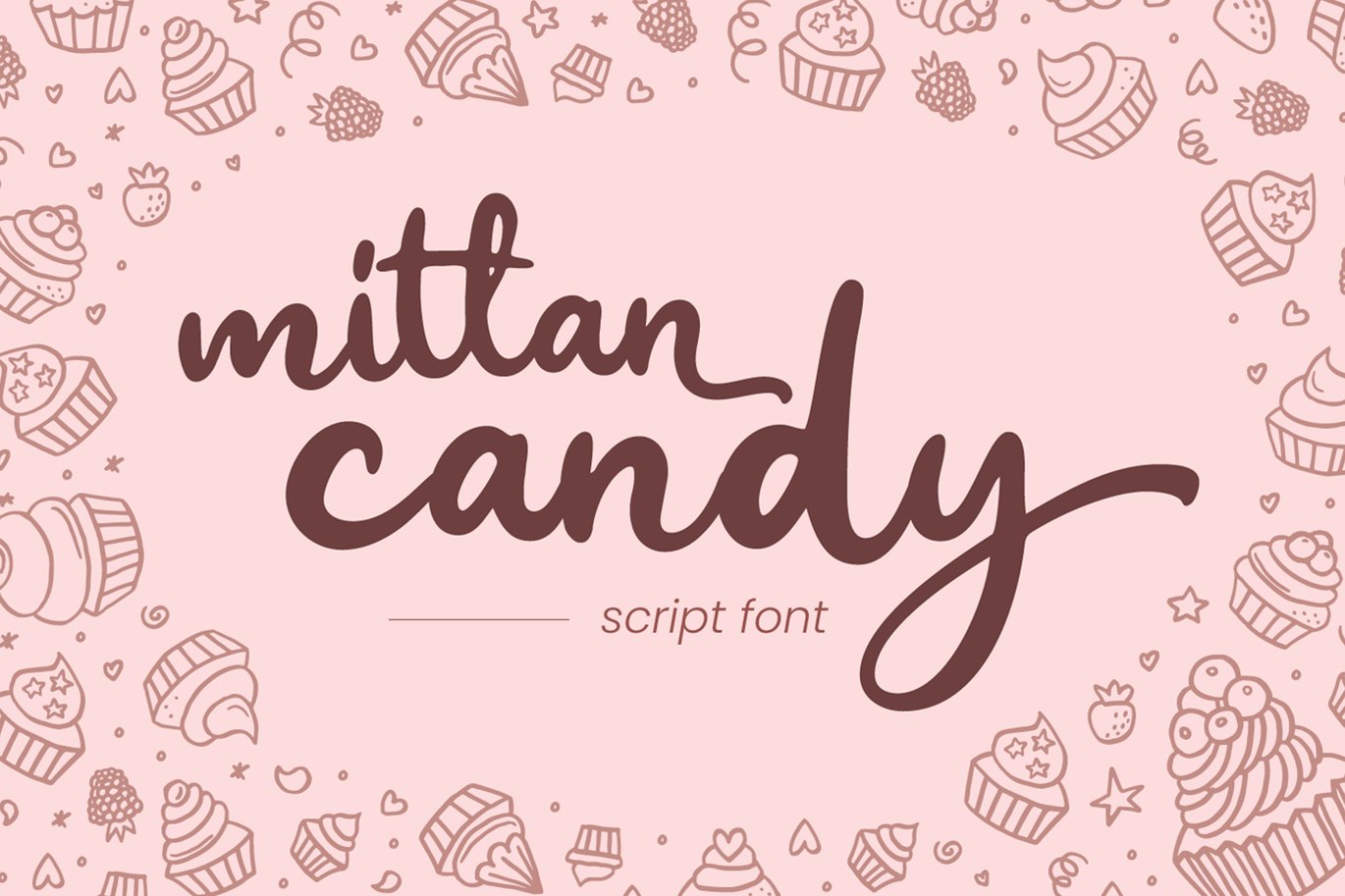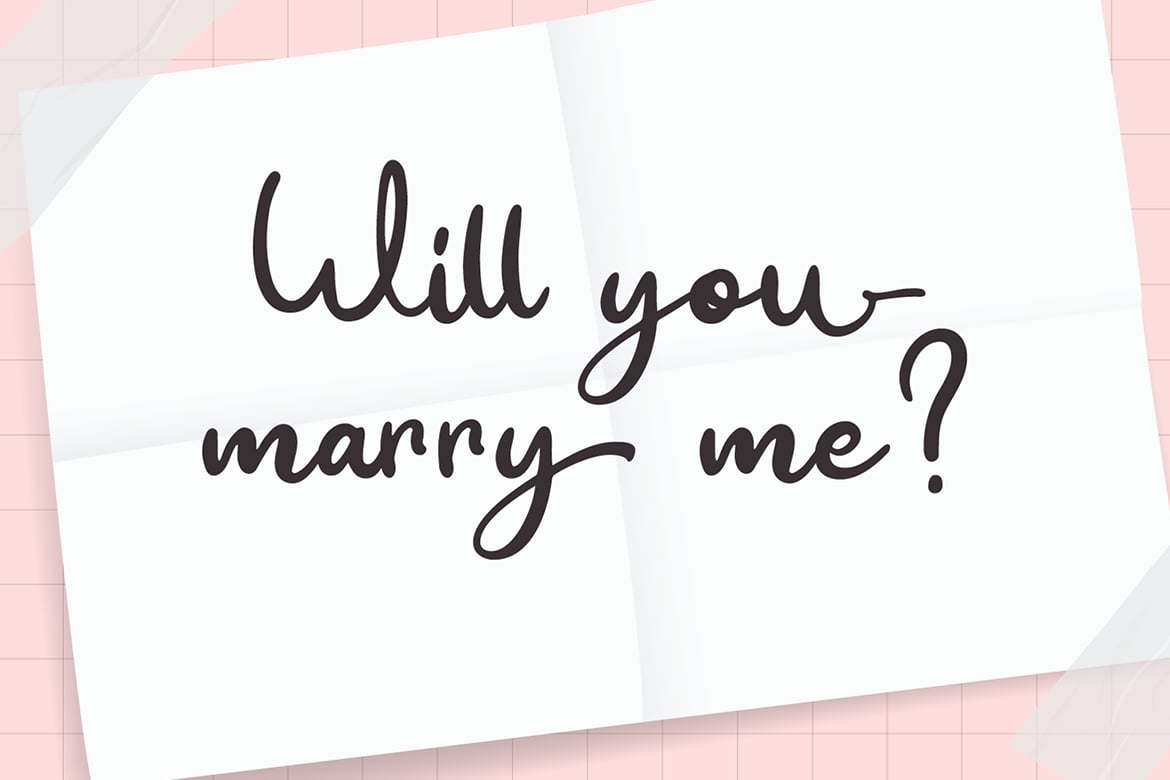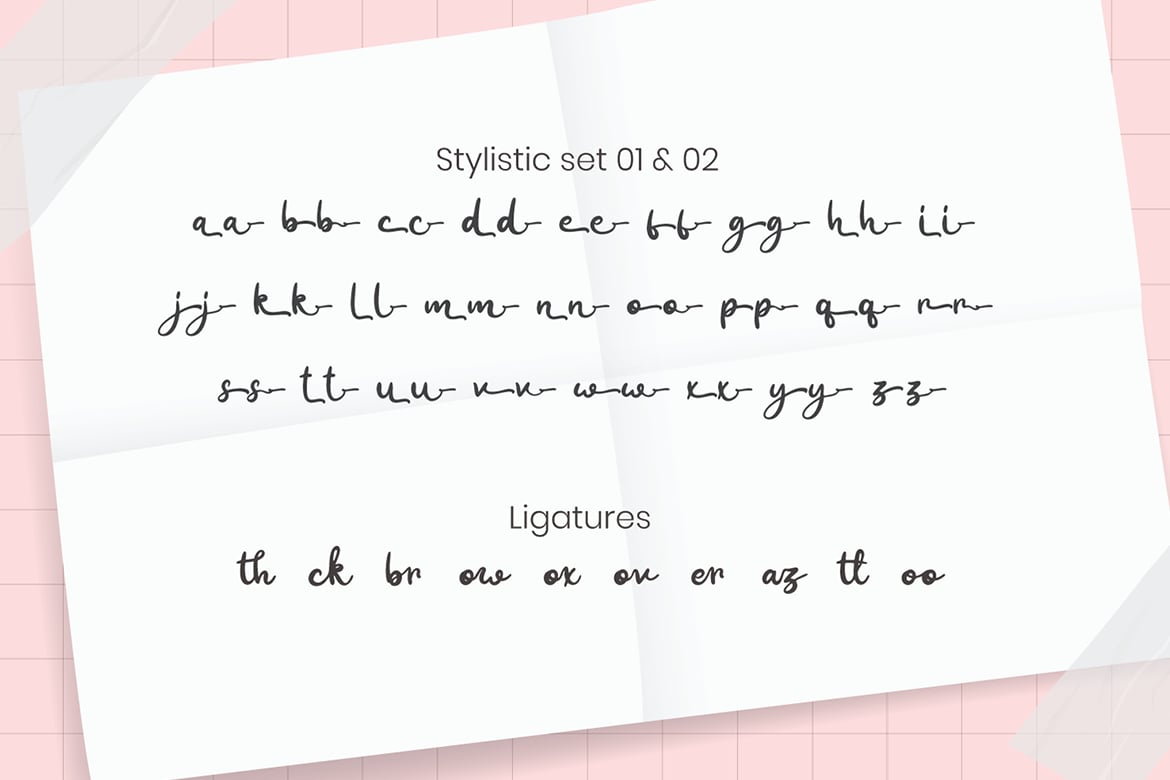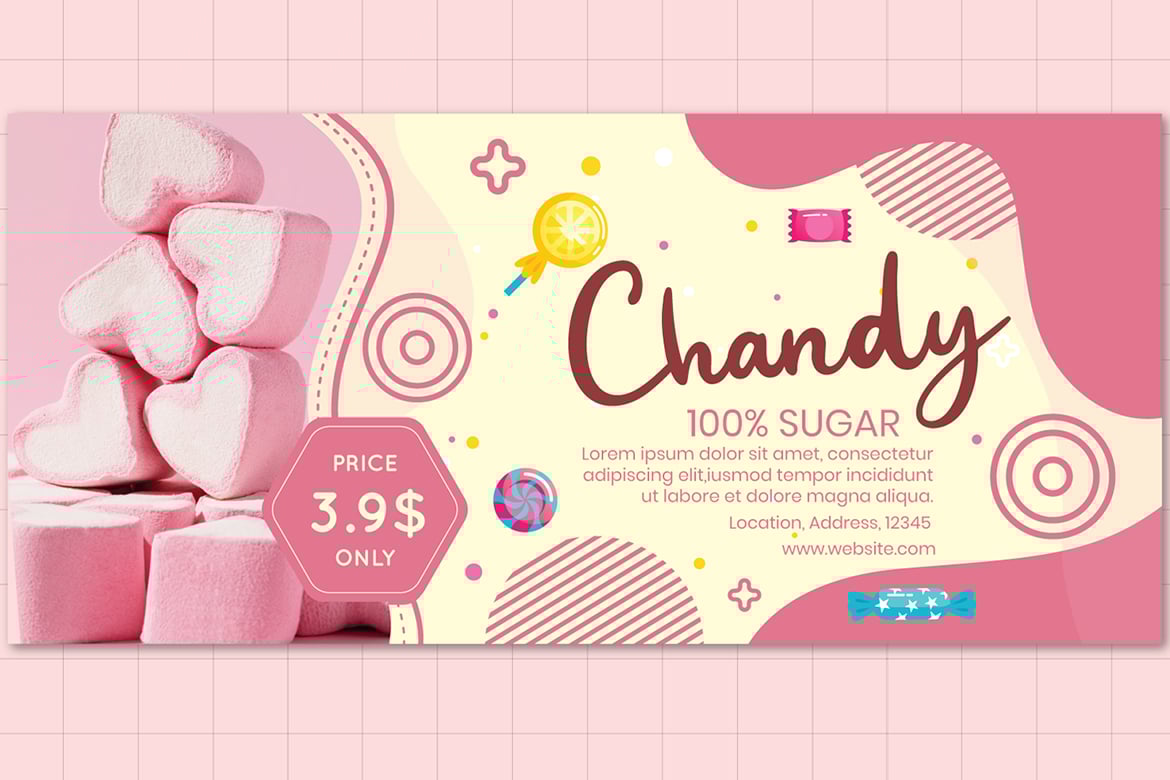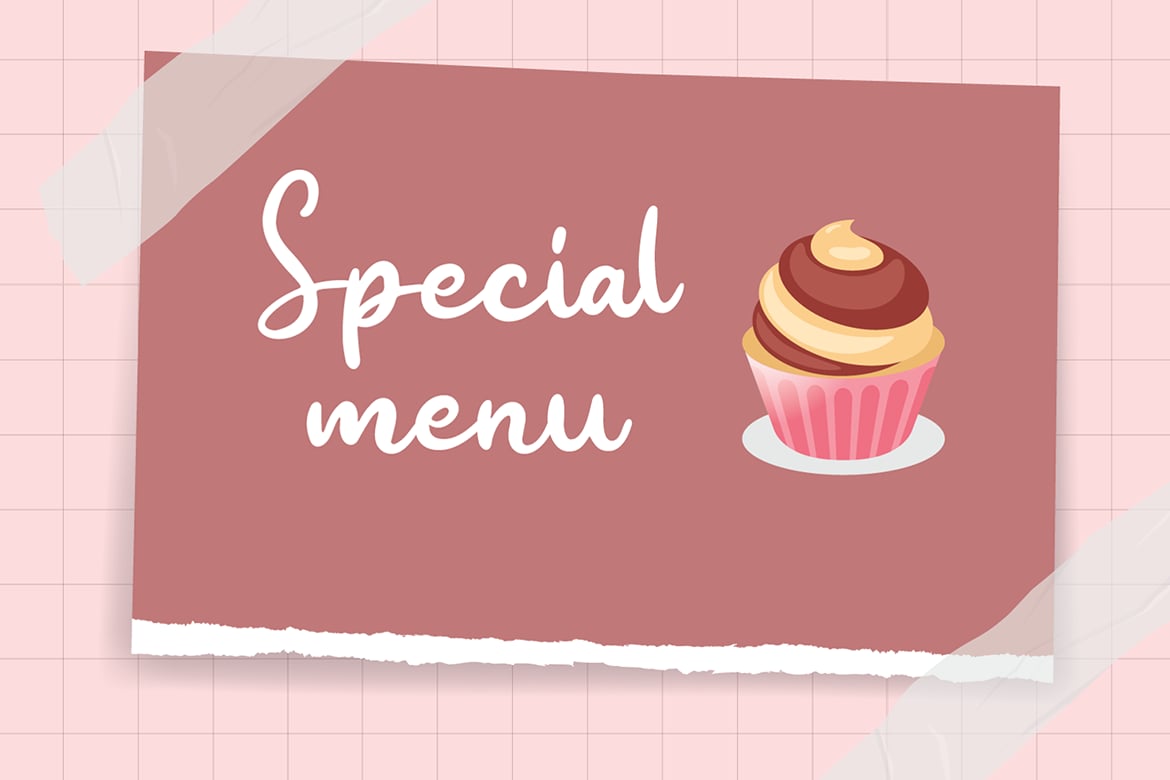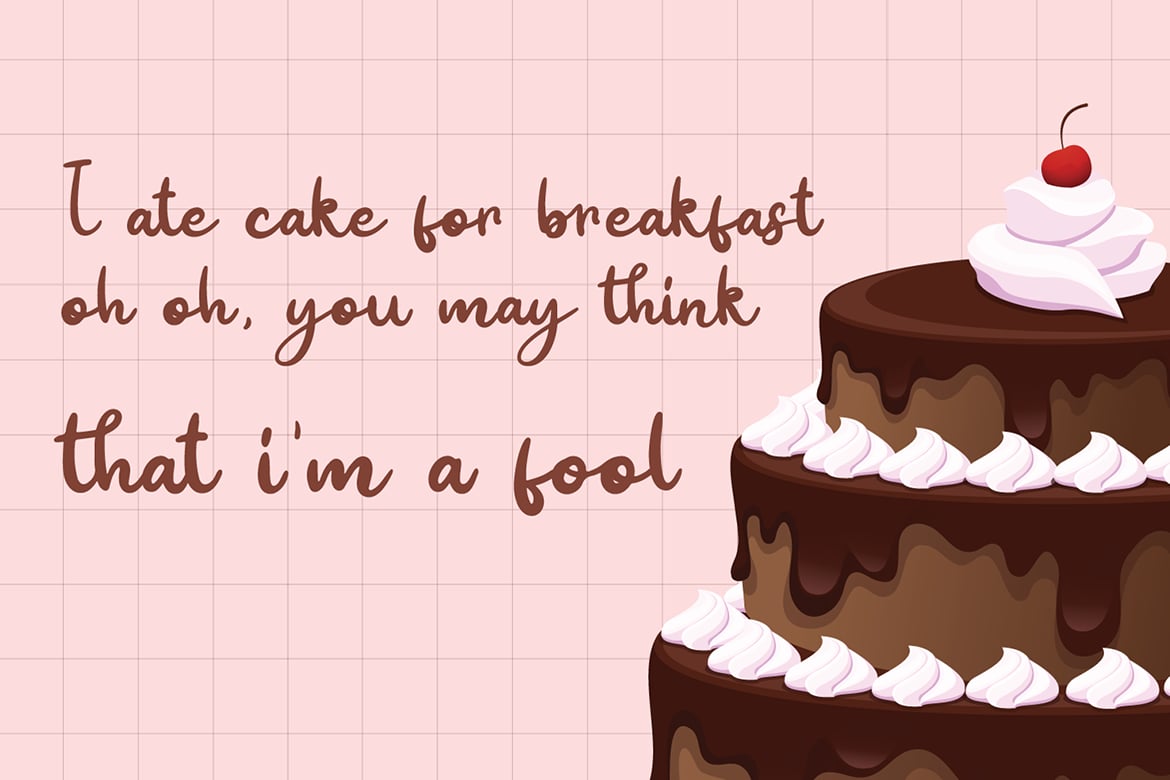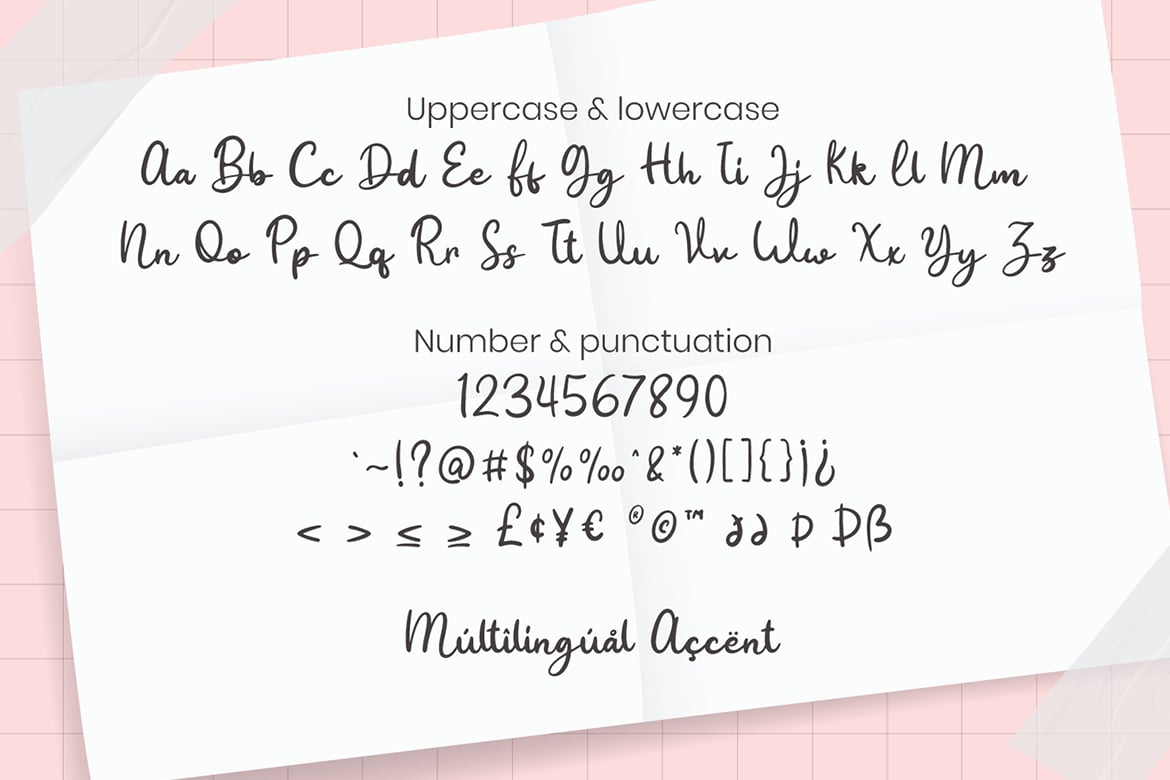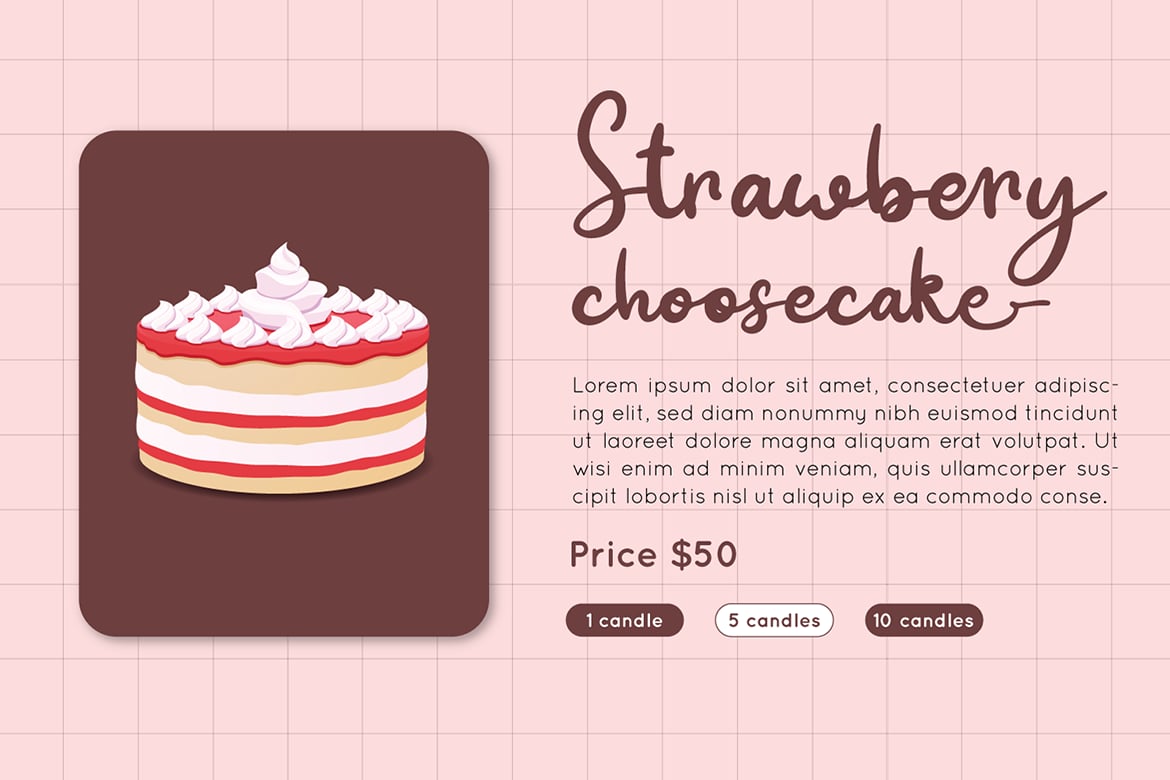
Mittan Candy – Script Font
Mittan Candy is a script font with versatile ending style and use it to create spectacular designs.
Combine it with Mittan Candy – Ending Swash to make an amazing effect on your letter!
Mittan Candy perfect for wedding promotion, branding, logo, invitation, stationery, social media post, product packaging, merchandise, blog design, game titles, cute style design, Book/Cover Title and more.